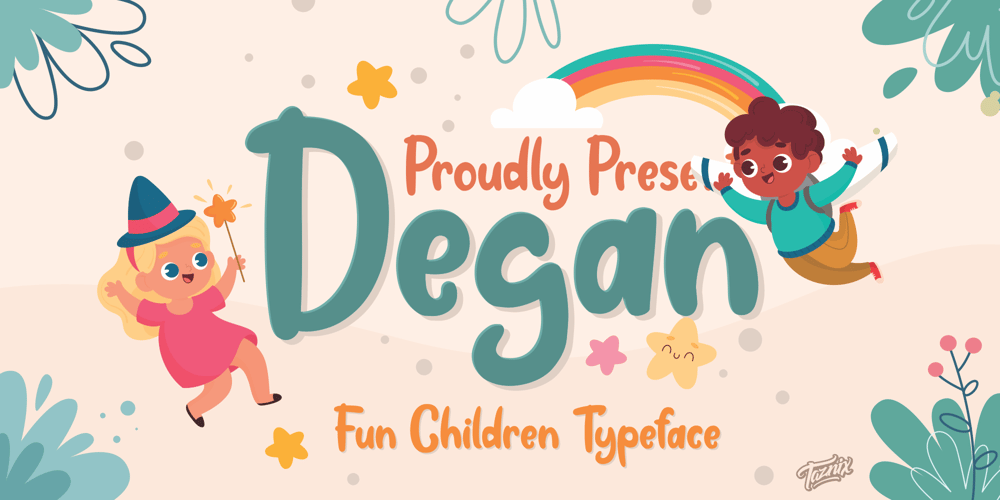
Degan
Degan font
Degan Font Family was designed by Ricky Hartasni and published by Taznix Creative. Degan contains 1 styles and family package options. Degan is fun display children font that perfect for kindergarten and children event.Degan is perfect for branding projects, logo, wedding designs, social media posts, advertisements, product packaging, product designs, label, photography, watermark, invitation, stationery and any projects that need handwriting taste.What’s Included : Standard glyphs Ligature Works on PC & Mac Simple installations Accessible in the Adobe Illustrator, Adobe Photoshop, Adobe InDesign, even work on Microsoft Word. PUA Encoded Characters – Fully accessible without additional design software. Fonts include multilingual support for; ä ö ü Ä Ö Ü ß ¿ ¡ Image used : All photographs/pictures/vector used in the preview are not included, they are intended for illustration purpose only.